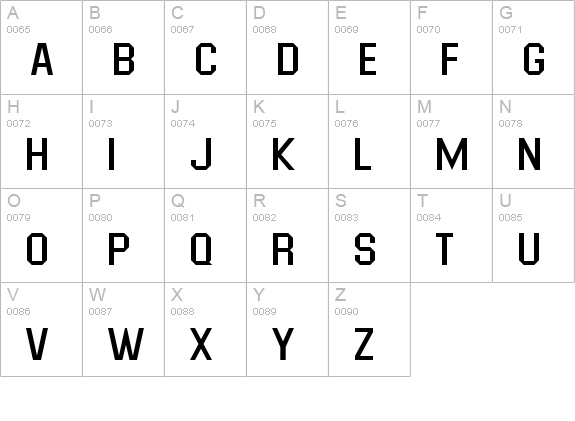
Masheen Font Details
Introducing Masheen, a strikingly modern and versatile font that is sure to make a statement in any design project. With its bold and dynamic letterforms, Masheen exudes confidence and creativity. Whether used in headlines, logos, posters, or branding materials, this font demands attention and commands a strong presence. What sets Masheen apart is not just its bold aesthetic, but also its incredible versatility. It seamlessly combines contemporary elements with a touch of retro inspiration, resulting in a unique and captivating visual experience. The clean lines and sharp angles of each letterform create a sense of precision and sophistication, making Masheen the perfect choice for those who appreciate the beauty of well-crafted typography. But what truly sets Masheen apart from other fonts is that it is available for free. Yes, you read that right! Masheen can be freely downloaded at FontsMarket.com, allowing designers, creatives, and enthusiasts to access this remarkable font without any cost. This generous offering opens the doors to endless possibilities, empowering individuals to bring their creative visions to life without any financial constraints. Masheen's bold and impactful presence, combined with its accessibility, makes it an invaluable asset for a wide range of design projects. From sleek and modern corporate branding to edgy and vibrant artistic endeavors, Masheen has the versatility to elevate any concept and leave a lasting impression. So why wait? Head over to FontsMarket.com and download Masheen today. Unleash your creativity and harness the power of this remarkable font to make a bold statement in your next design venture. With Masheen by your side, the possibilities are limitless, and the results are bound to be extraordinary.